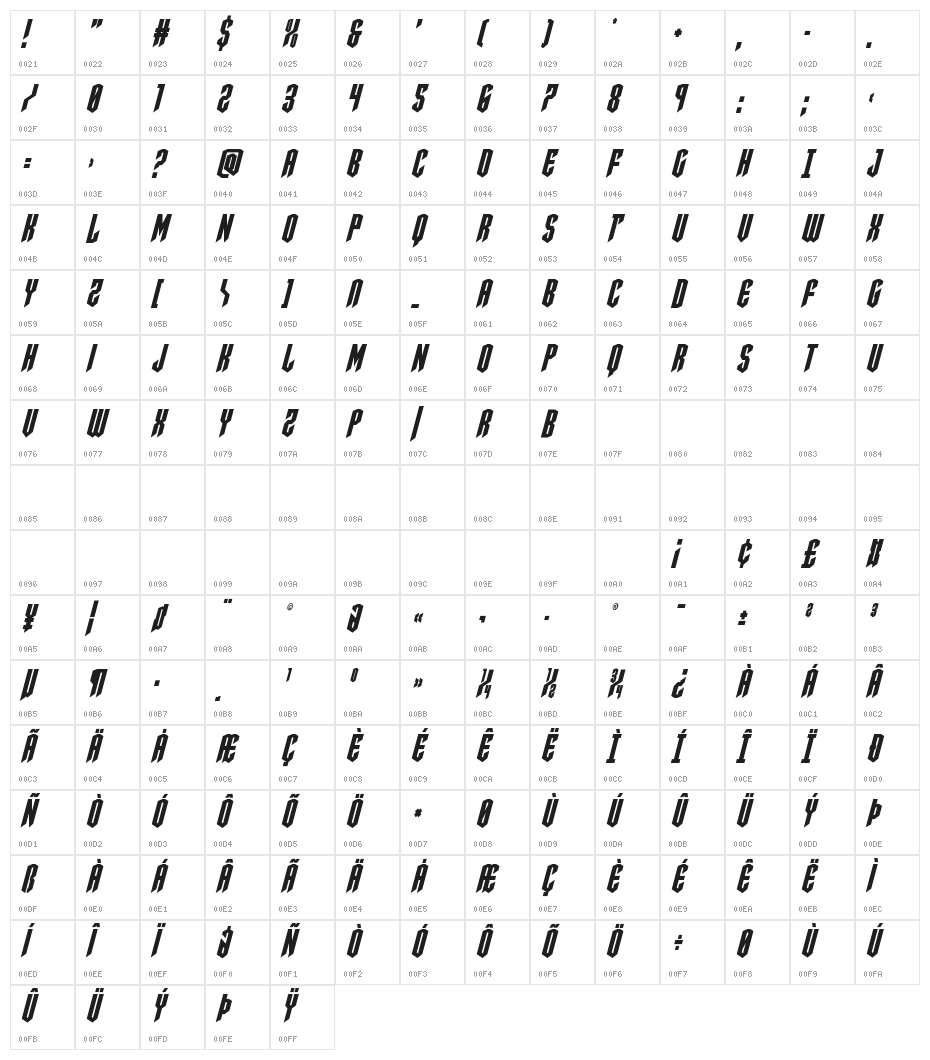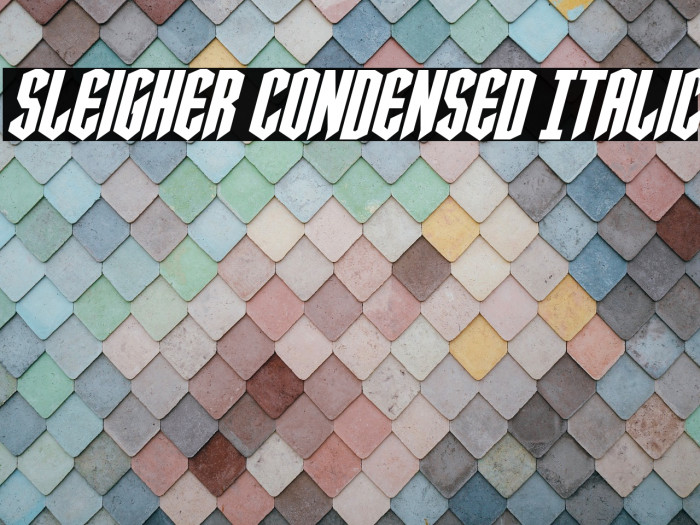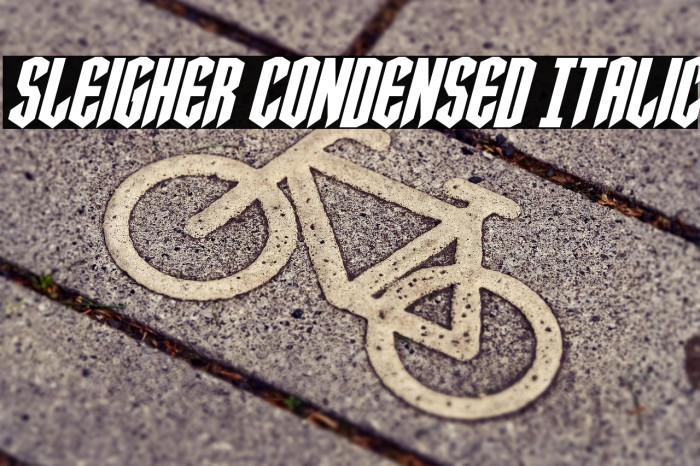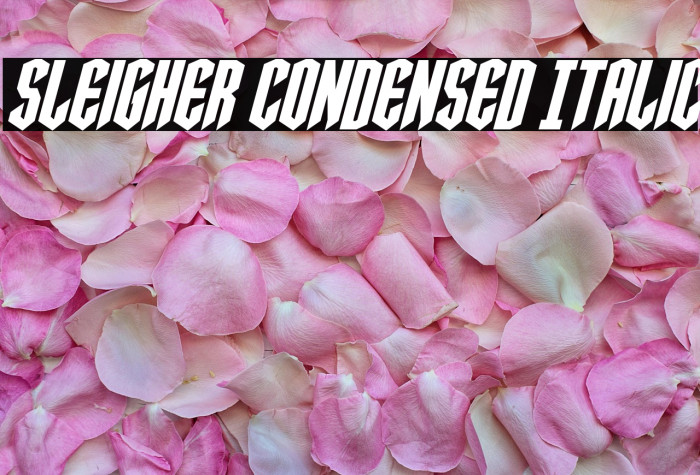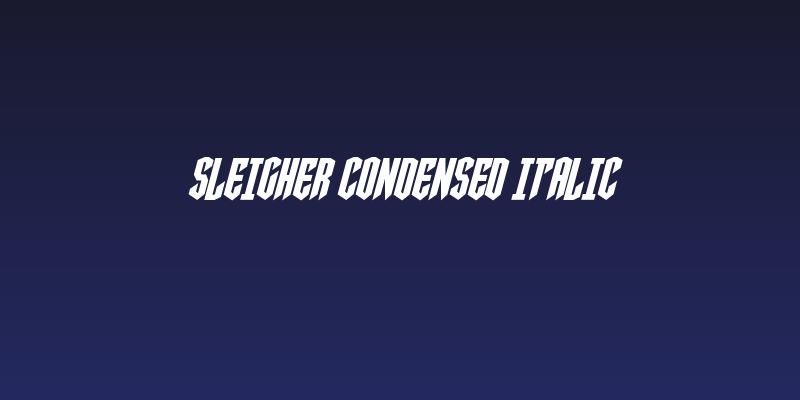
Sleigher Condensed Italic Font
Sleigher Condensed Italic Description
This font features a bold and dynamic style with sharp, angular edges and a condensed form. The italic slant adds a sense of movement and energy, making it ideal for attention-grabbing designs. The uppercase and lowercase letters maintain a consistent height, while the numbers and special characters complement the overall aesthetic. The design is reminiscent of a modern, edgy typeface that could be used in various creative projects.
| Proposed Projects | Ideal for use in music album covers, sports team logos, posters, and edgy branding materials. |